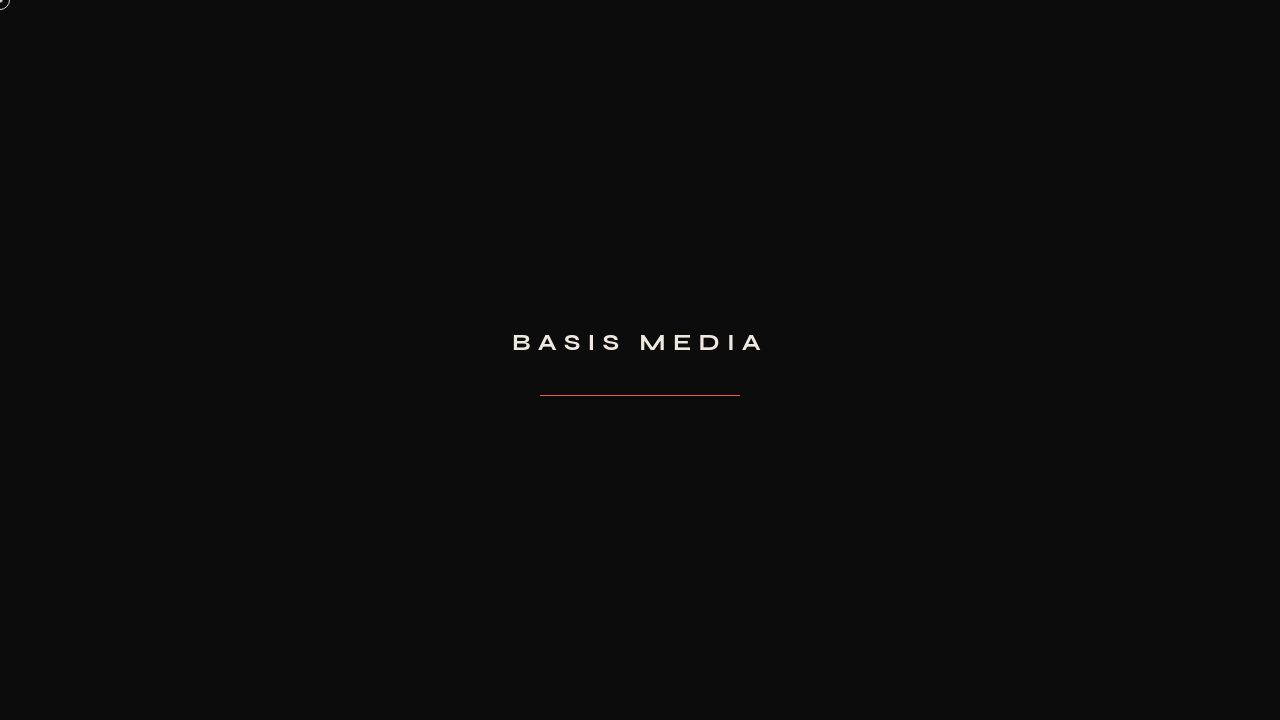
What fonts does Media use?
Basis Media, a creative agency in Hong Kong, leverages typographic choices to enhance its visual identity. The use of Manrope offers a clean and versatile look, suitable for their varied content like videos and podcasts. Noto Sans TC provides clarity and readability, ideal for engaging their audience in brand campaigns. Syne adds a contemporary touch, complementing their innovative approach to AI-assisted production. Together, these fonts reflect the agency's commitment to creativity and strategic communication.
Frequently asked questions about Media.basis.hk's fonts
What fonts does media.basis.hk use?
Basis Media primarily uses Manrope, Noto Sans TC, and Syne. Each font has specific weights tailored for various content types, enhancing their visual appeal.
How do the fonts on media.basis.hk compare to alternatives?
Manrope offers versatility, while Noto Sans TC excels in readability for diverse languages. Syne provides a modern flair, making them suitable alternatives to traditional sans-serif fonts.
What styles and weights are used for these fonts?
Basis Media utilizes multiple weights for each font: Manrope has weights from 300 to 700, Noto Sans TC offers weights from 300 to 900, and Syne ranges from 400 to 800.